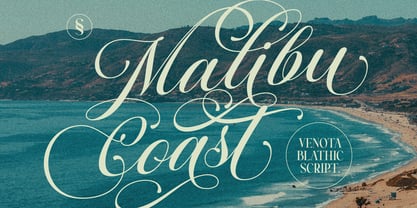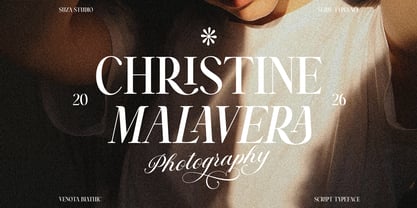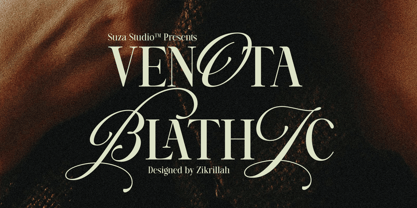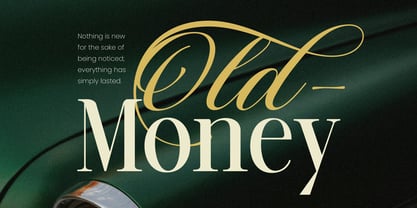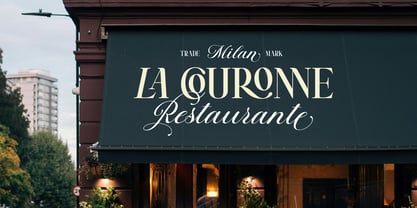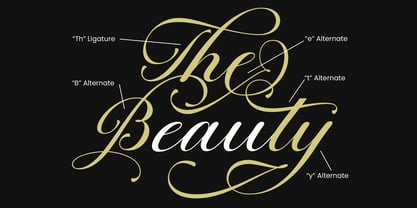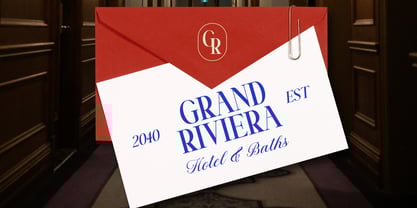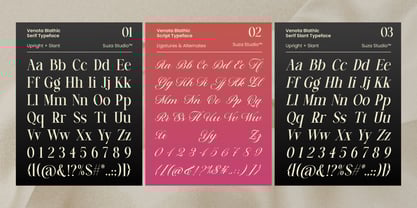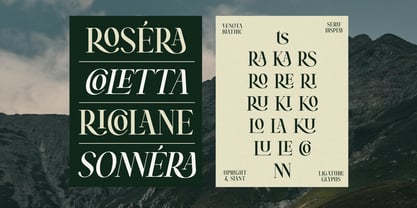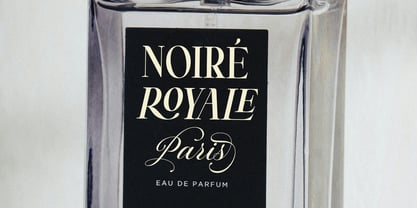
Venota Blathic
by Suza Studio
The Venota Blathic Font Family was designed by Zikrillah and published by Suza Studio. Venota Blathic contains 3 styles and family package options.
Venota Blathic is a captivating blend of calligraphy and serif, exuding a timeless atmosphere and nostalgic charm that enhances every design. This unique blend brings a touch of sophistication to any project, making it an ideal choice for branding, editorial layouts, and social media visuals. With its versatile aesthetic, Venota Blathic enriches your design toolkit, offering endless creative possibilities for refined and stunning results. The Perfect Font Combination: Complete Punctuation & Symbols : Everything you need is here – punctuation, numbers, and special characters. Extensive Language Support: English, Italian, French, Spanish, German, Portuguese, Dutch, Danish, Norwegian, and Swedish. PUA-Encoded Characters – Fully accessible without additional design software. This font supports ligatures, alternates, and is multilingual.
Designers: Zikrillah
Publisher: Suza Studio
Foundry: Suza Studio
Design Owner: Suza Studio